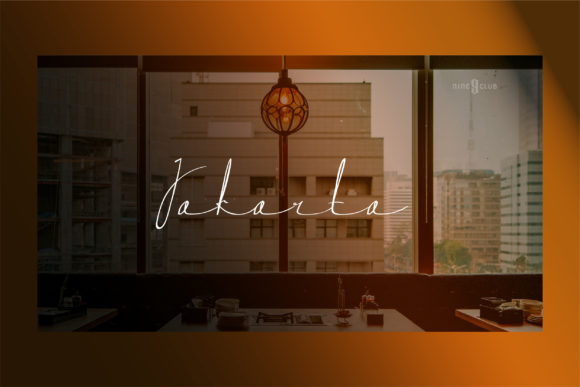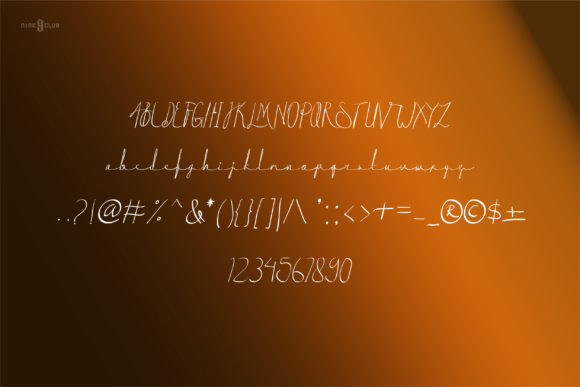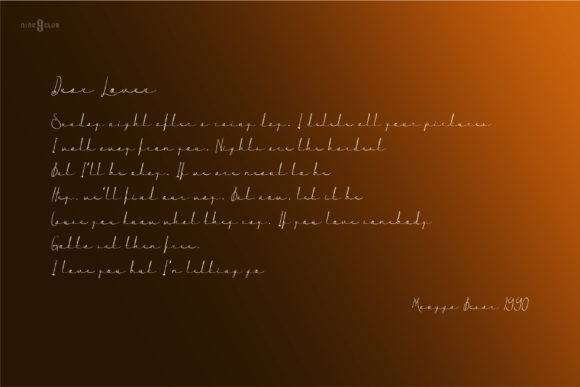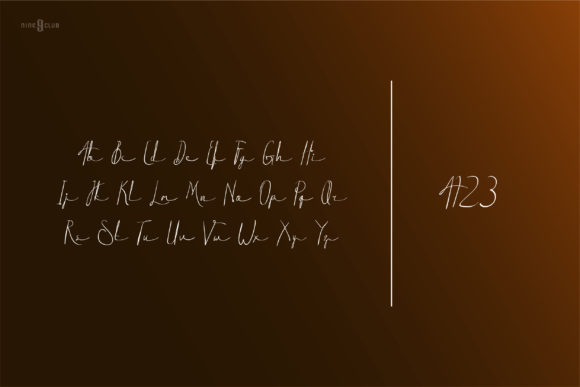
Jakarta Font
About Jakarta Font
Jakarta is a luxurious handwritten font. Whether you’re looking for fonts for Instagram or calligraphy scripts for DIY projects, Jakarta will turn any creative idea into a true piece of art!